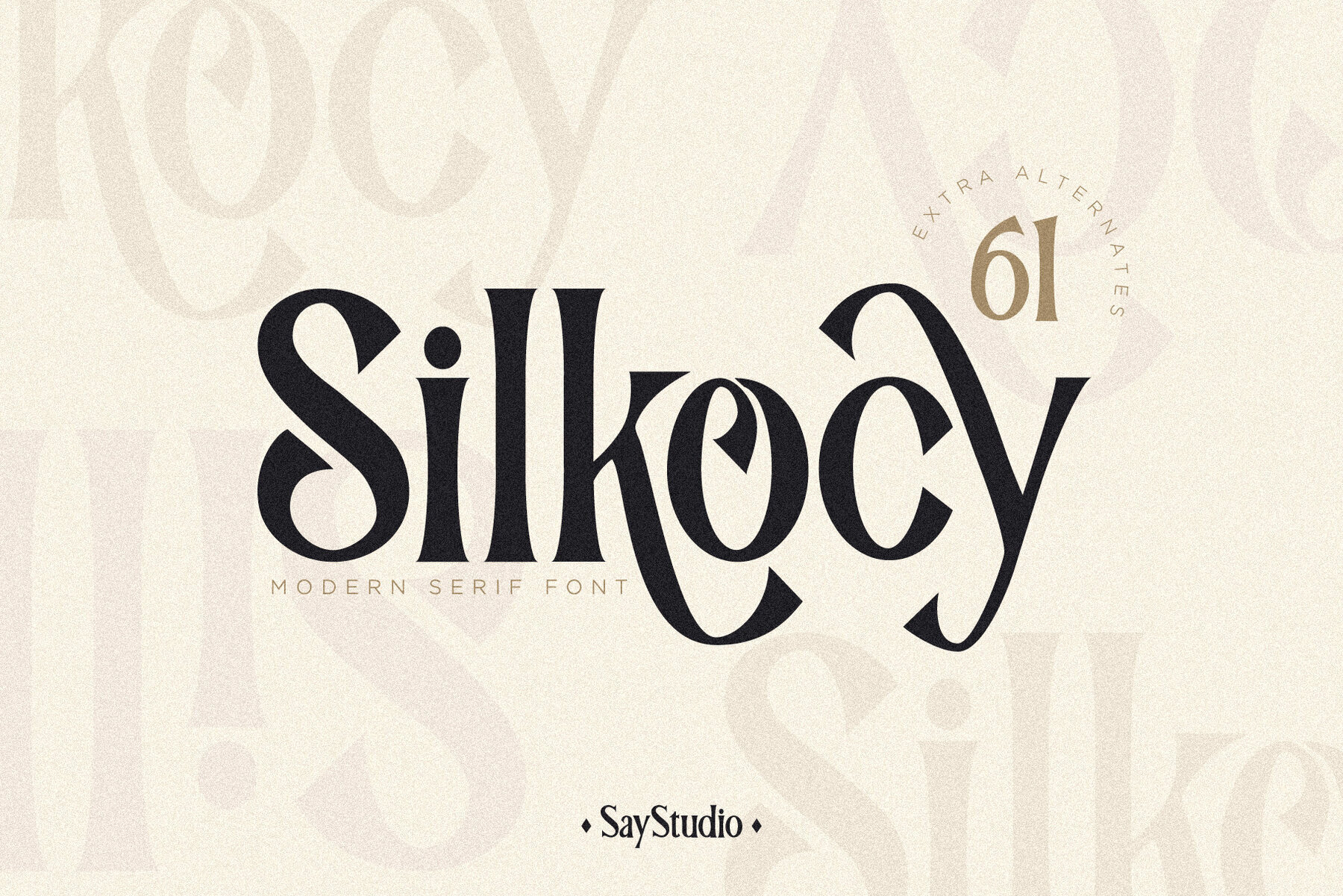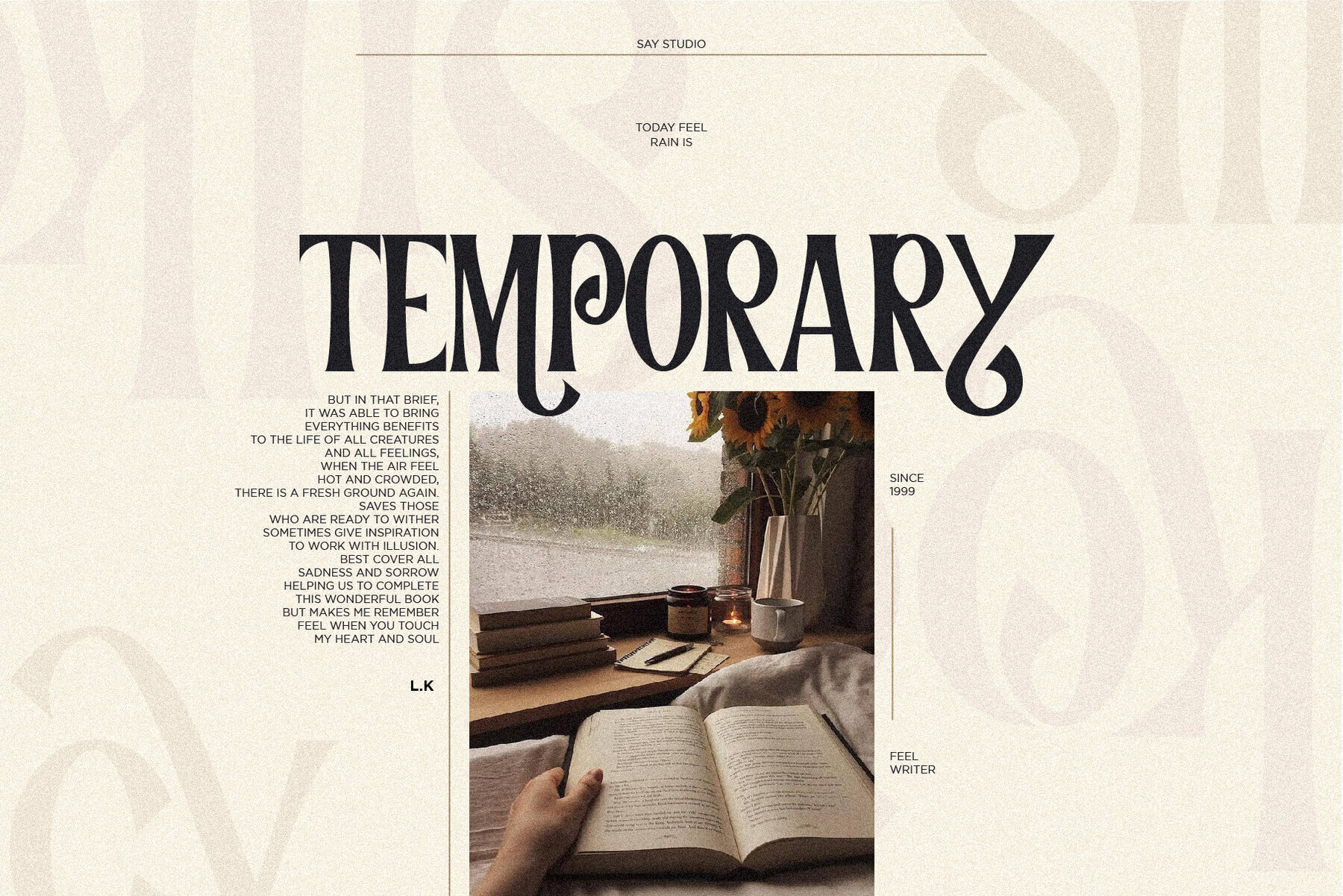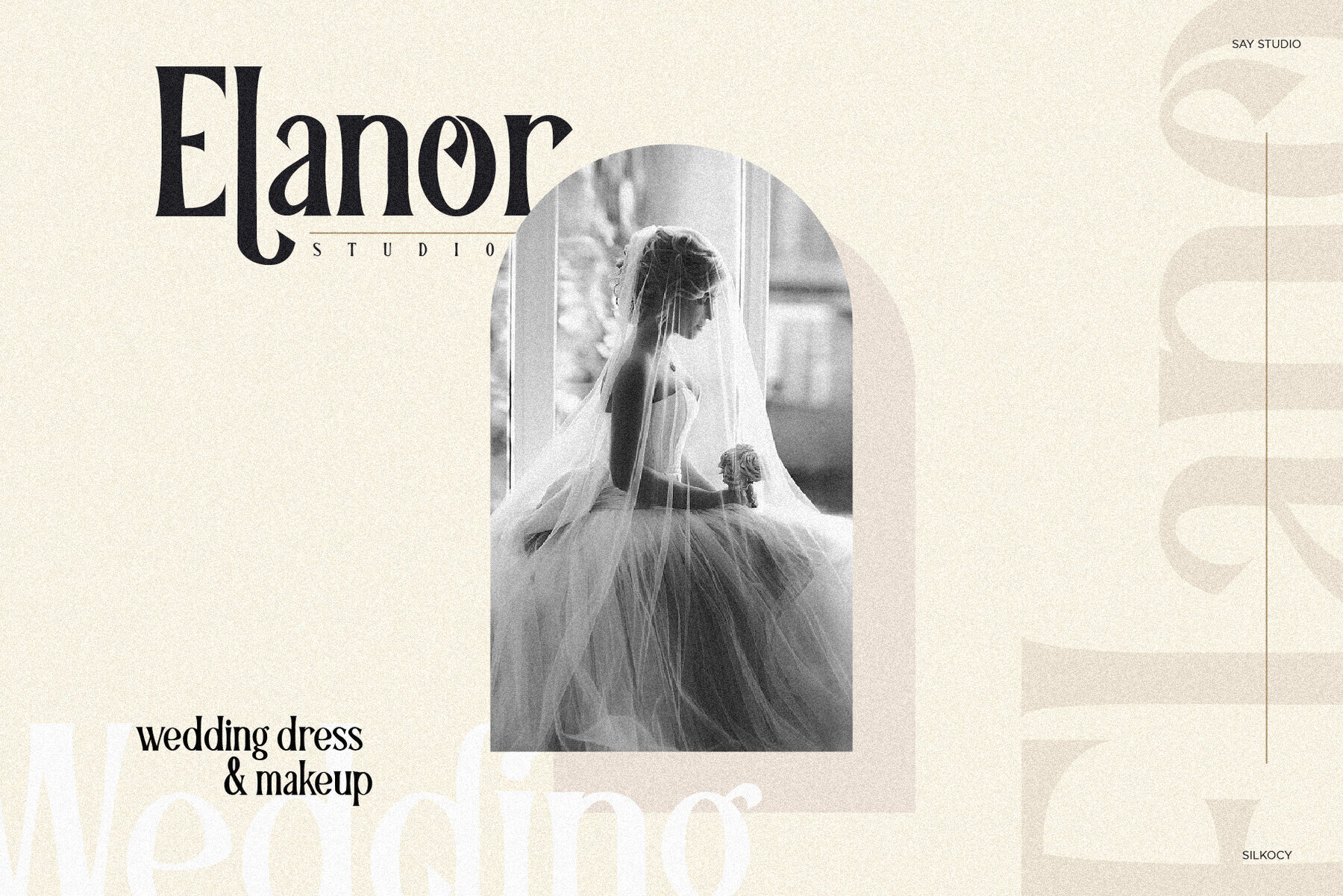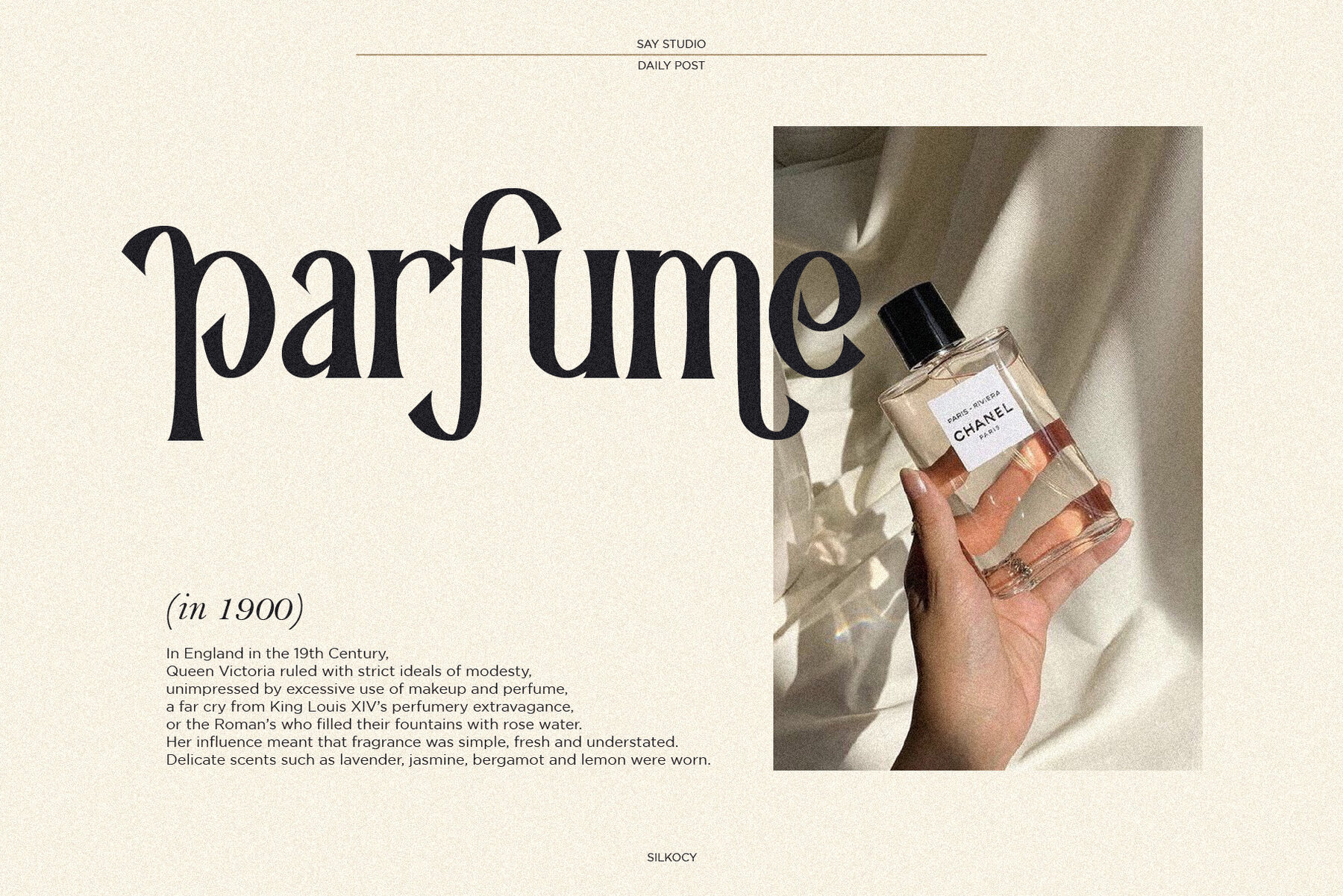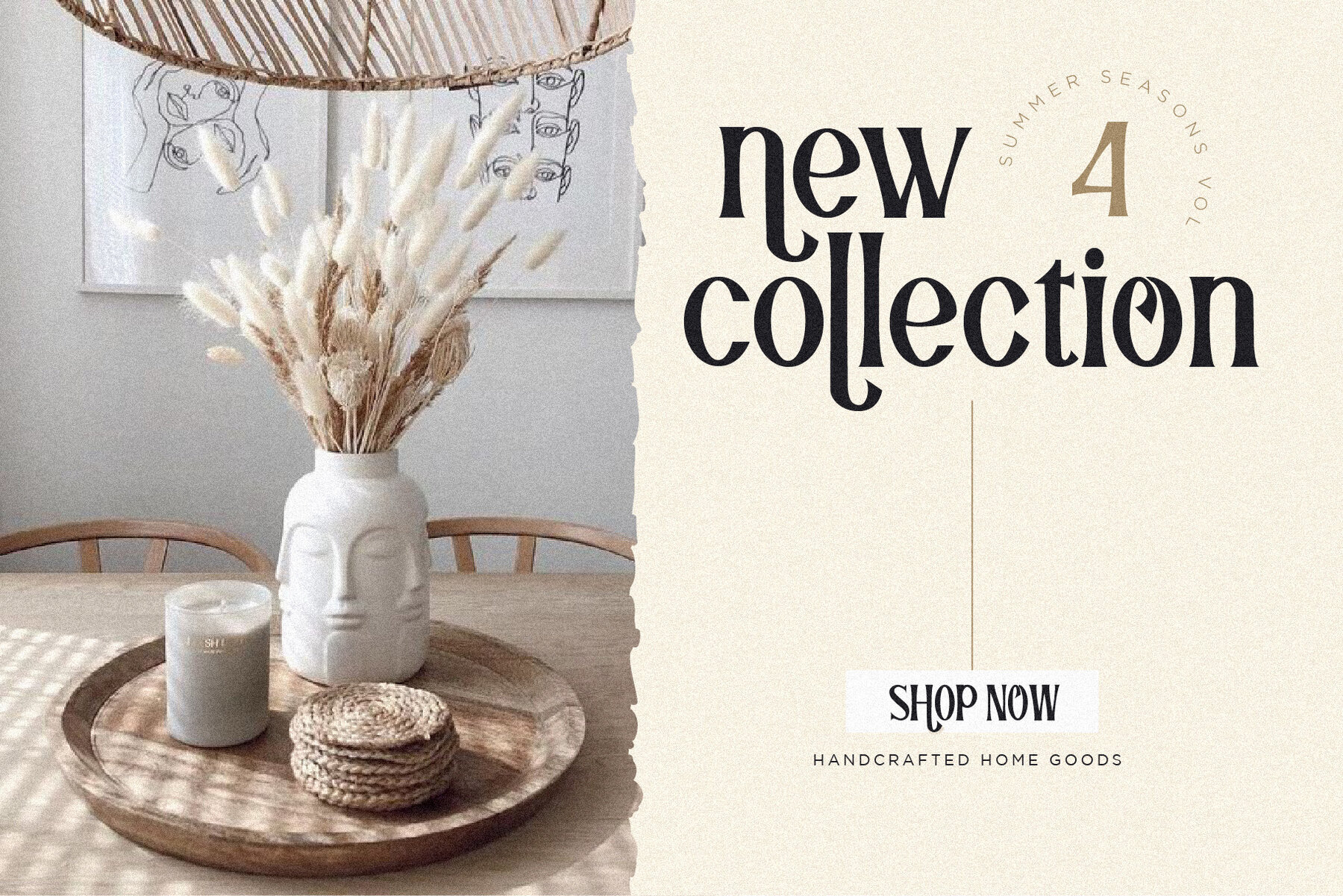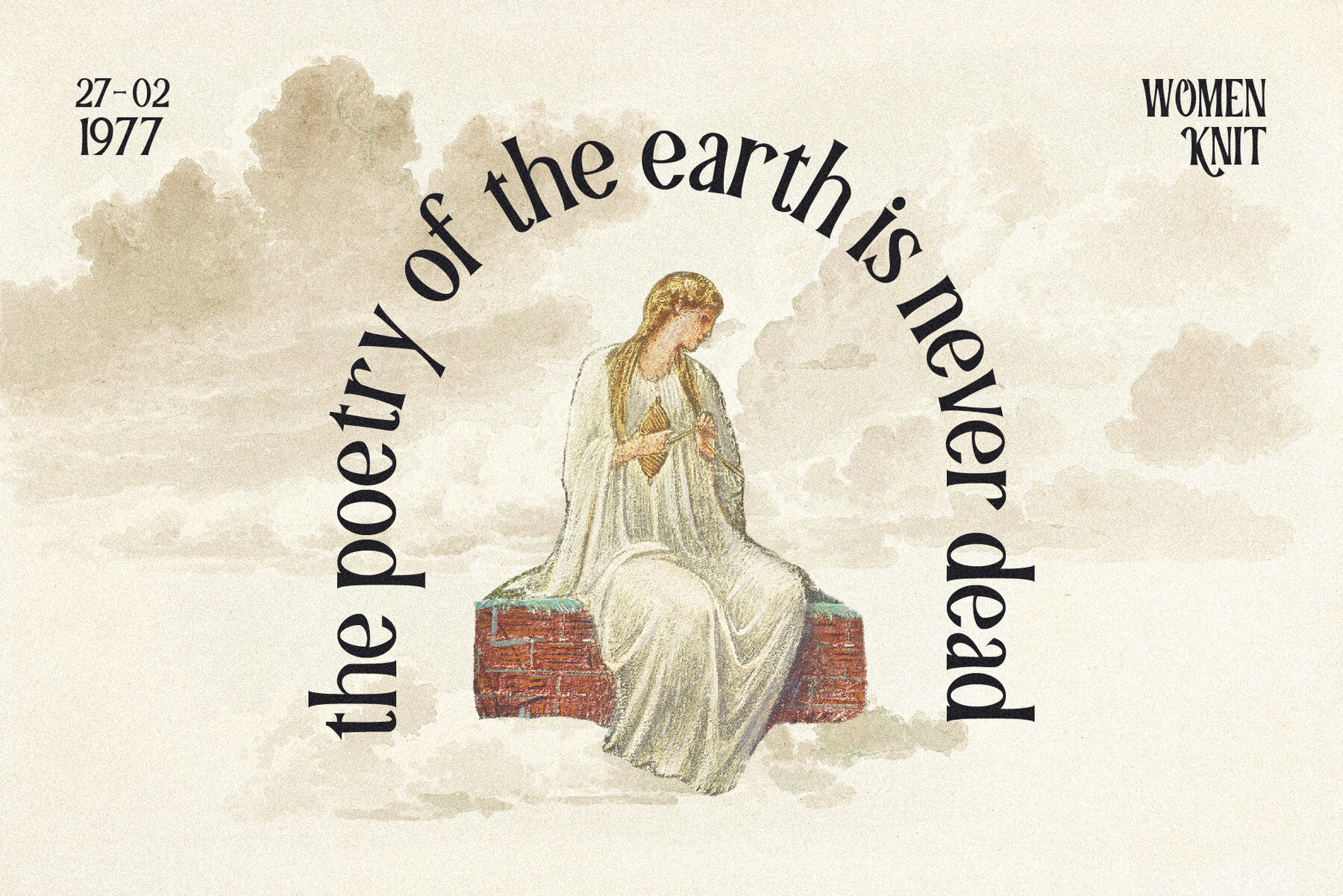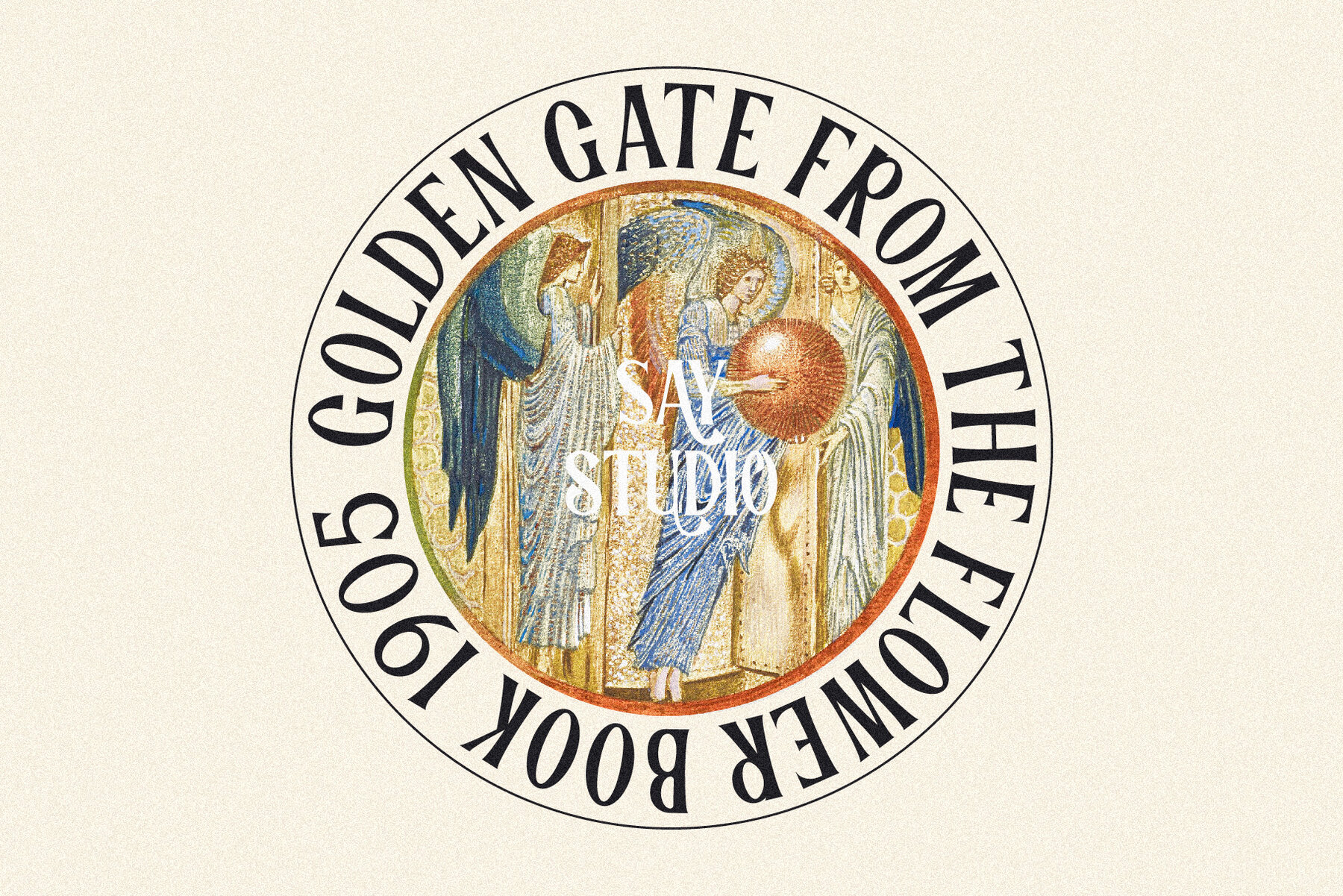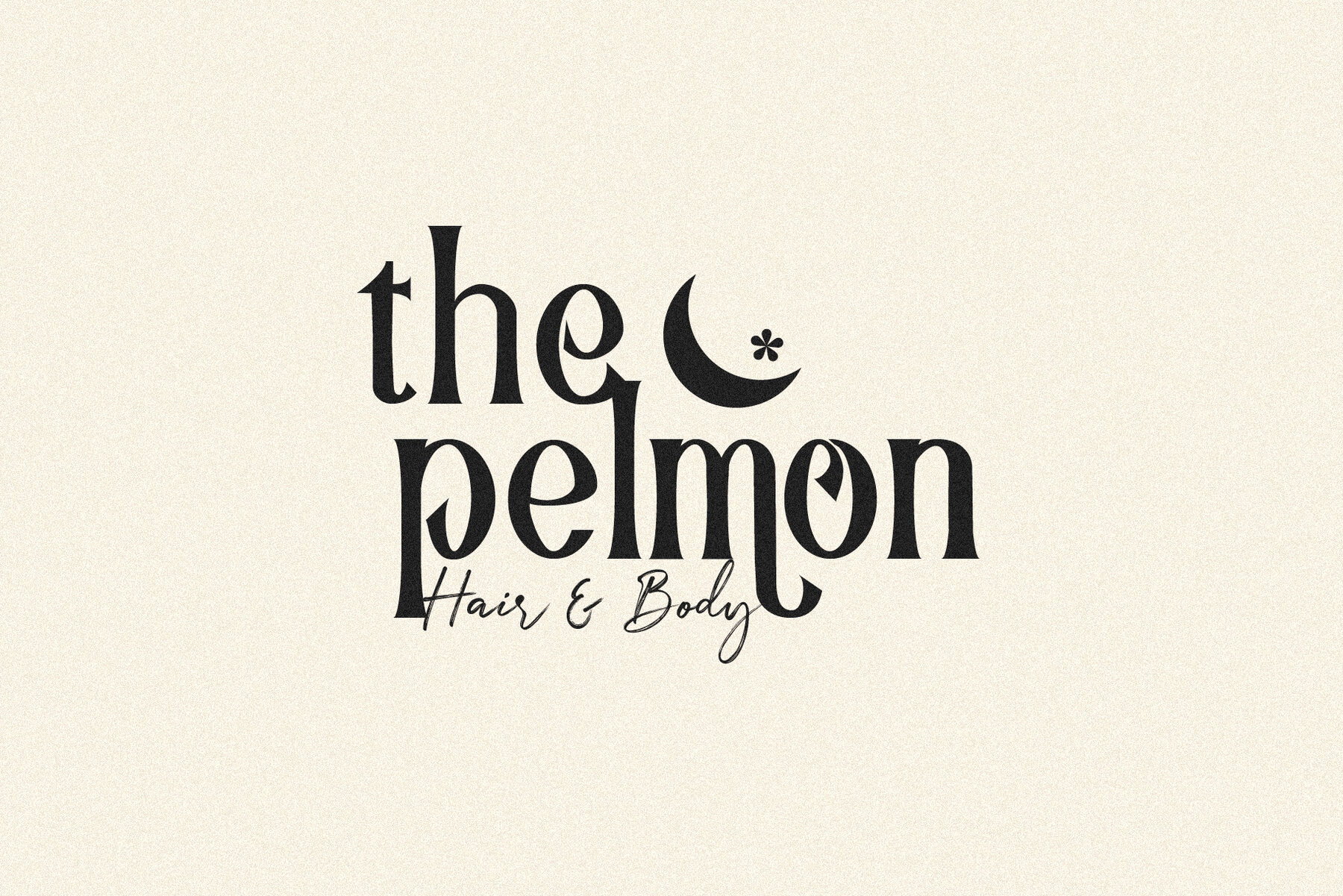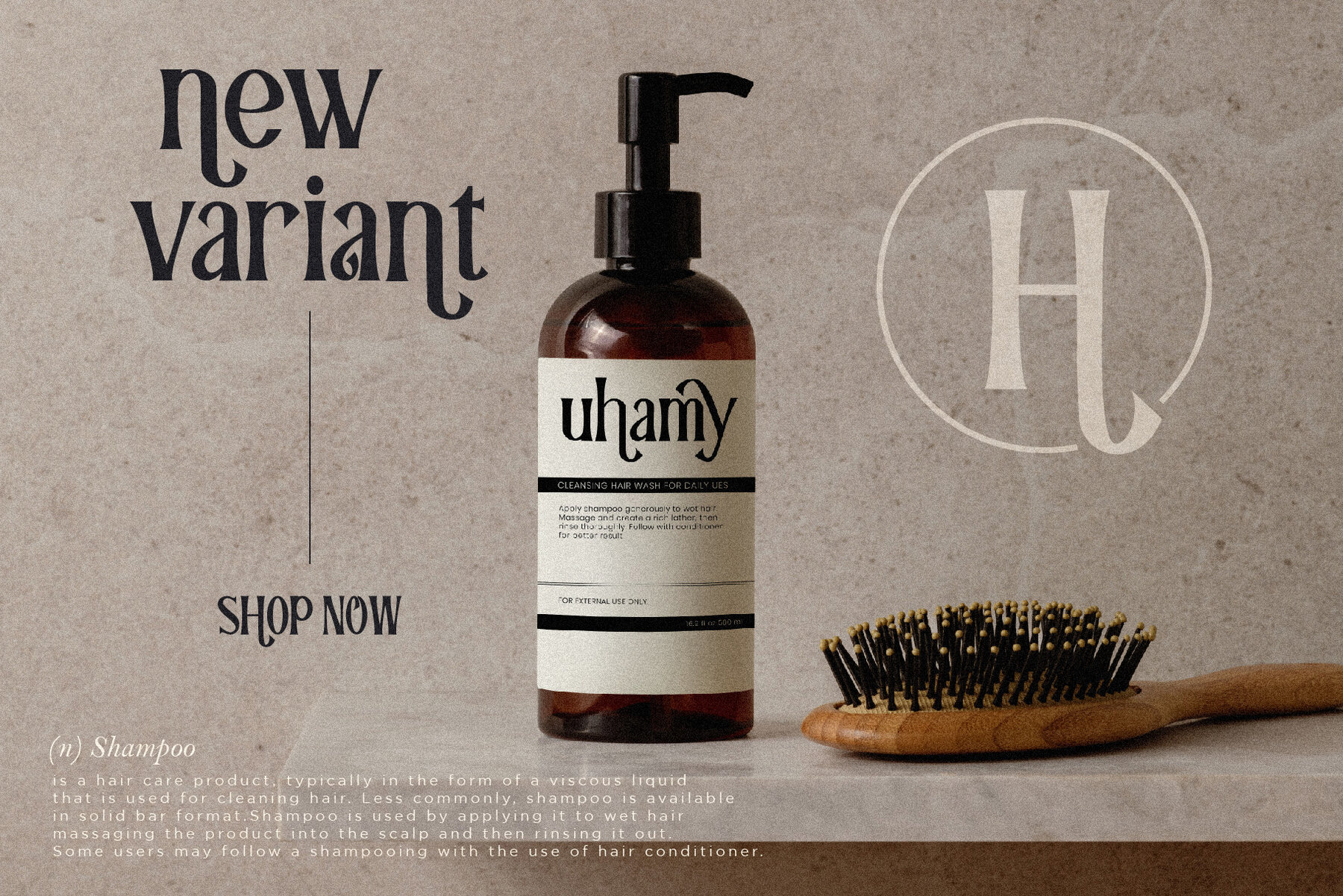
Silkocy Font
Silkocy stands as an exemplar of modern design, offering a condensed serif typeface that thrives in diverse settings. Featuring both uppercase and lowercase characters, this font exudes elegance with versatility, ideal for logos, headers, and impactful display texts. Its sophisticated aesthetic is further enhanced by the distinctive appeal of tightly kerned all-caps configurations. Silkocy, crafted with precision, includes an impressive set of 61 alternative characters. These unique letters enhance your creative expression, allowing fluid adaptation to specific design needs.Silkocy: Modern Aesthetic in Condensed Serif